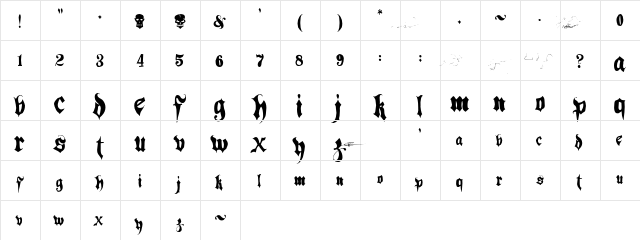
Hacjiuza Regular
Design Context for Hacjiuza Typeface
Hacjiuza is a composed and adaptable typeface that performs quietly and consistently across a wide range of design contexts.